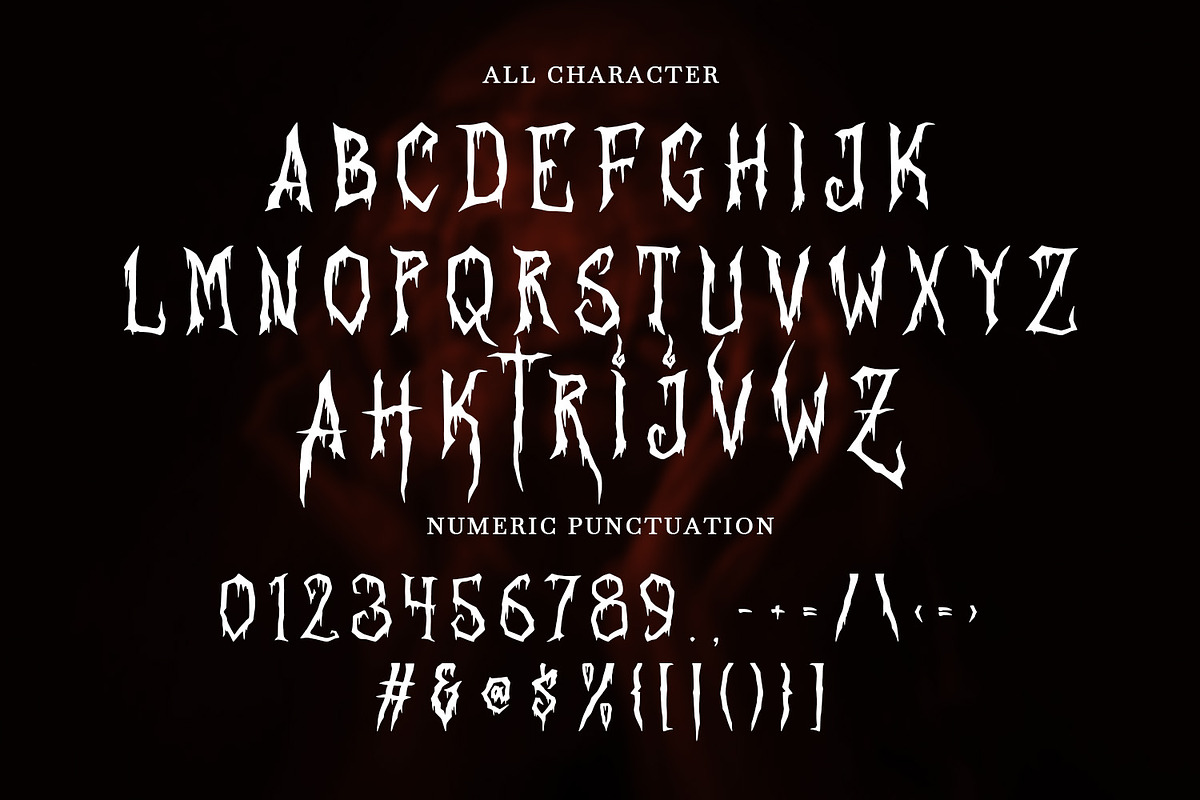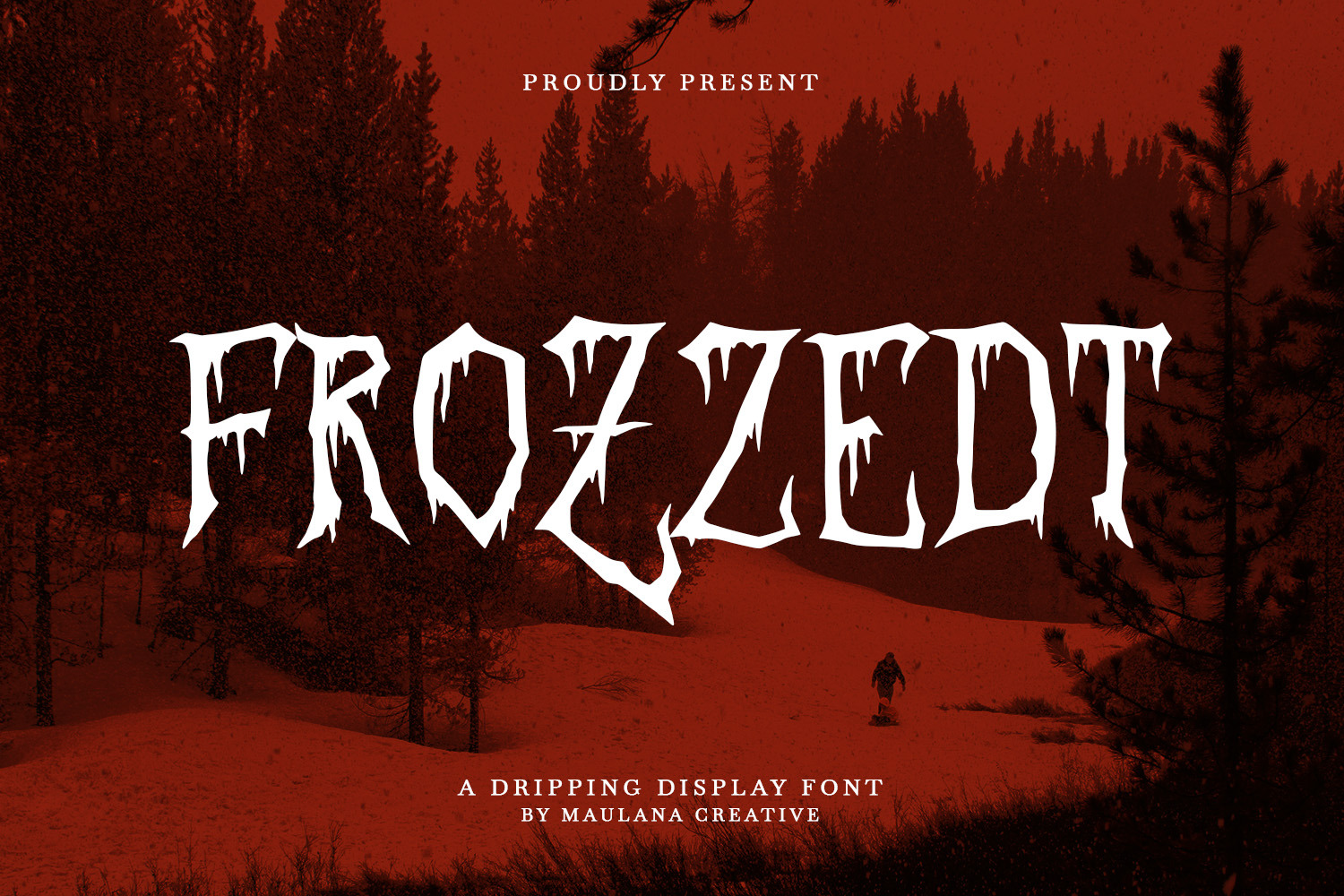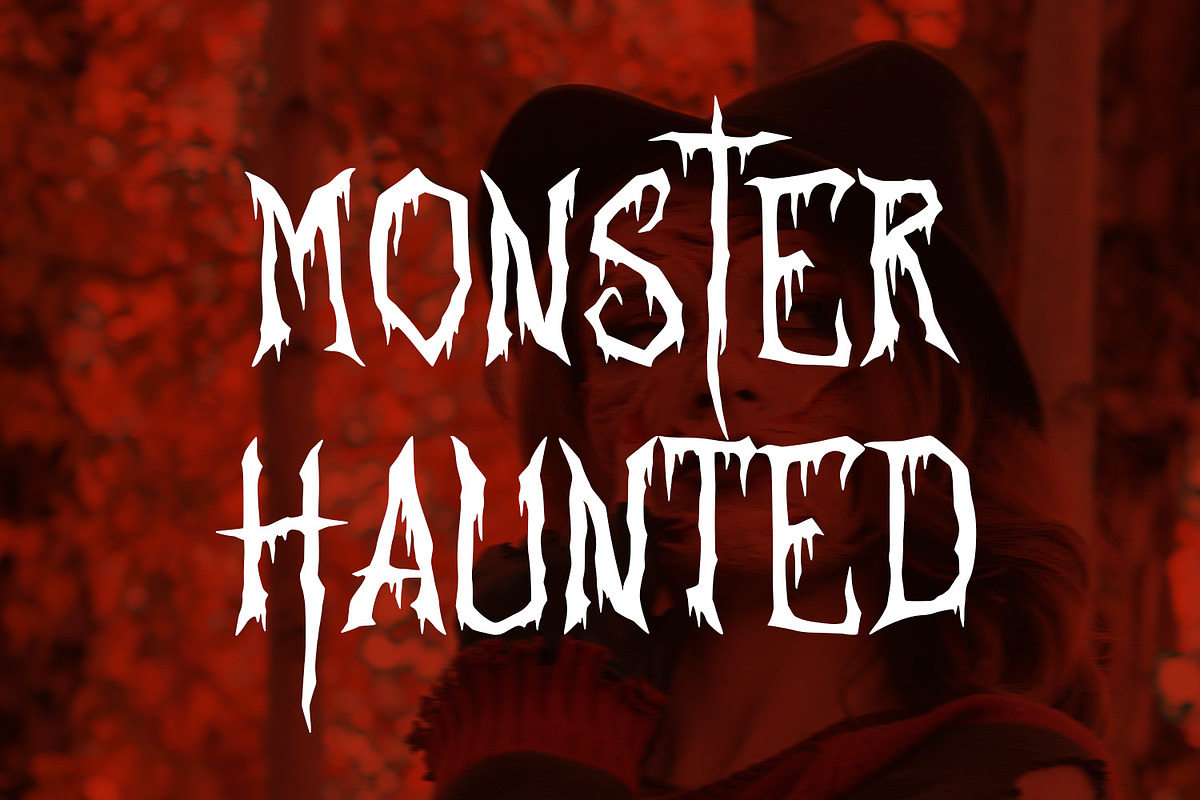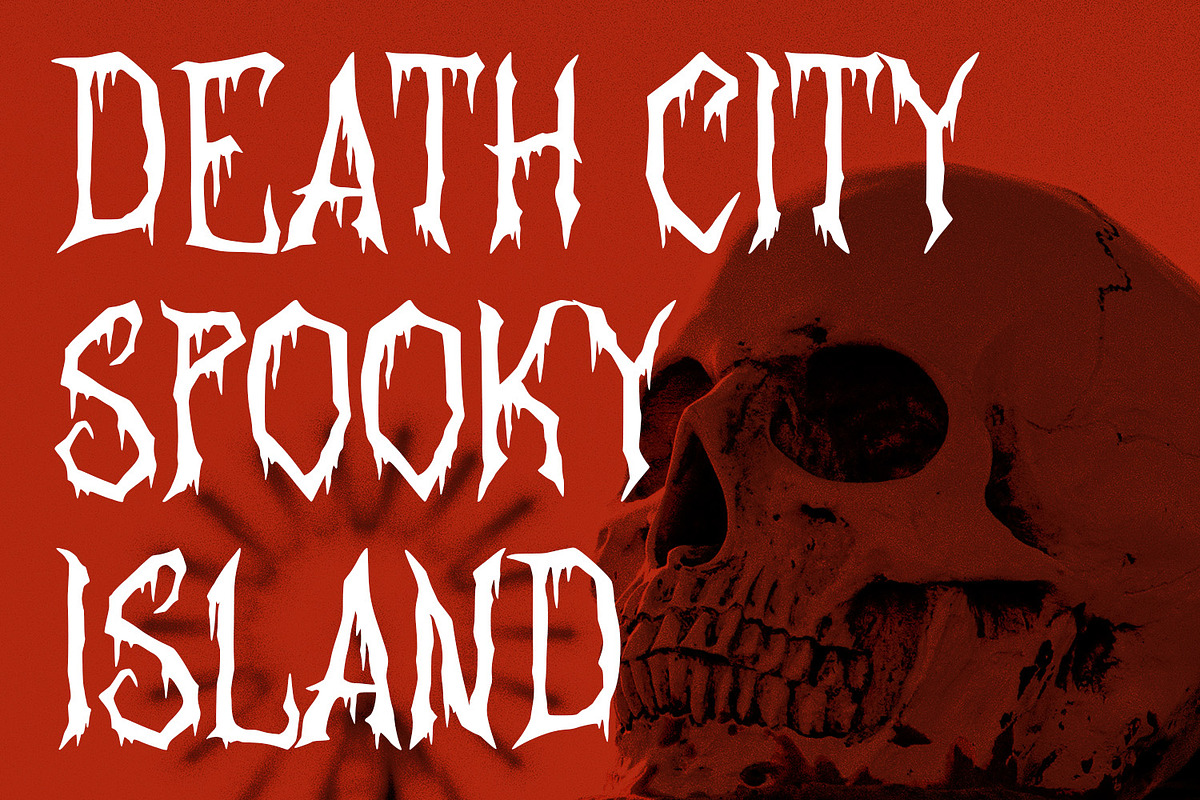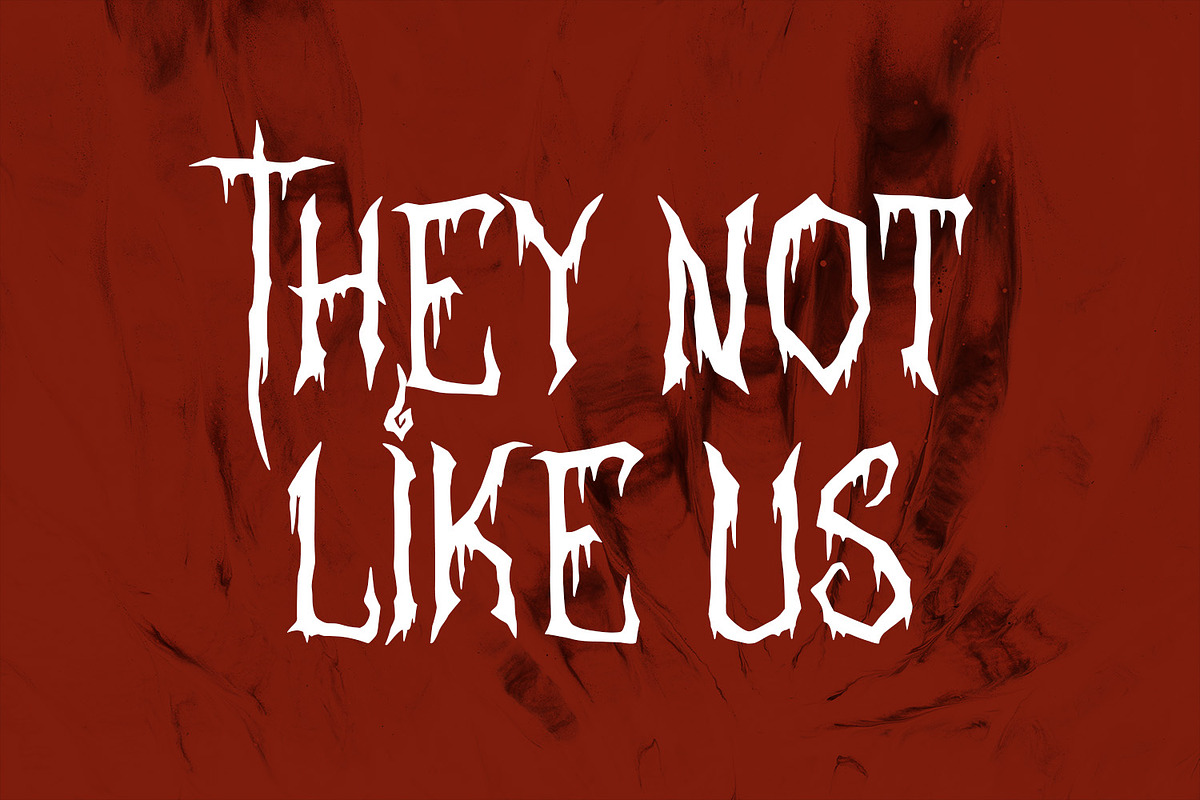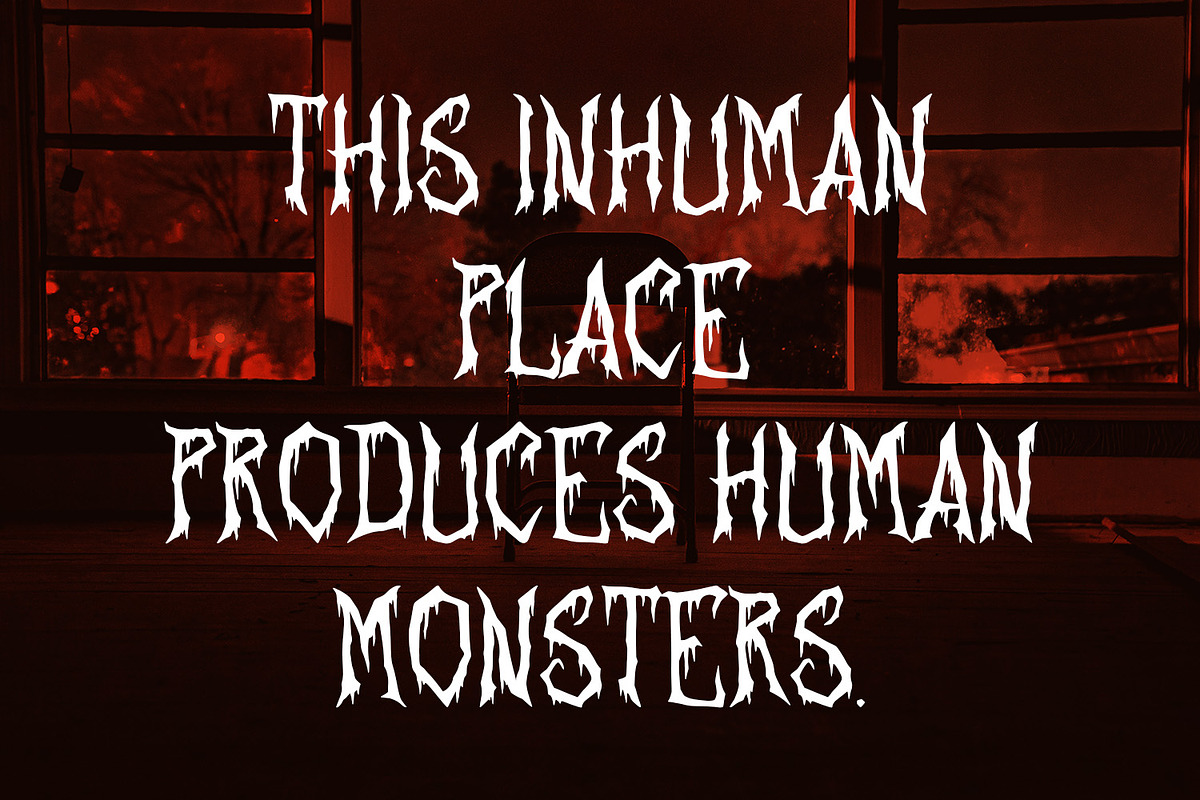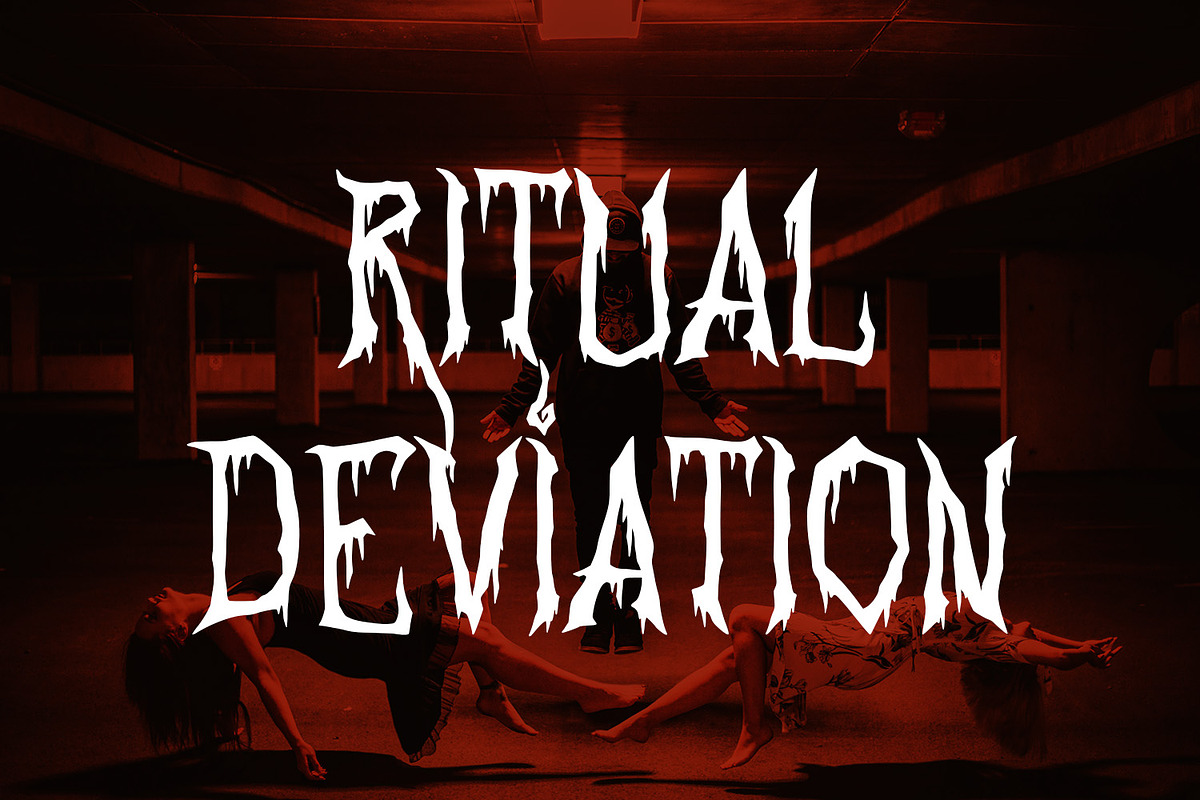
Frozzedt Dripping Display Font
Frozzedt is a dripping handmade display font. With bold stroke and fun character with alternate. To give you an extra creative work. Frozzedt font support multilingual more than 100+ language. This font is good for logo design, Social media, Movie Titles, Books Titles, a short text even a long text letter and good for your secondary text font with sans or serif. Make a stunning work with Frozzedt font.